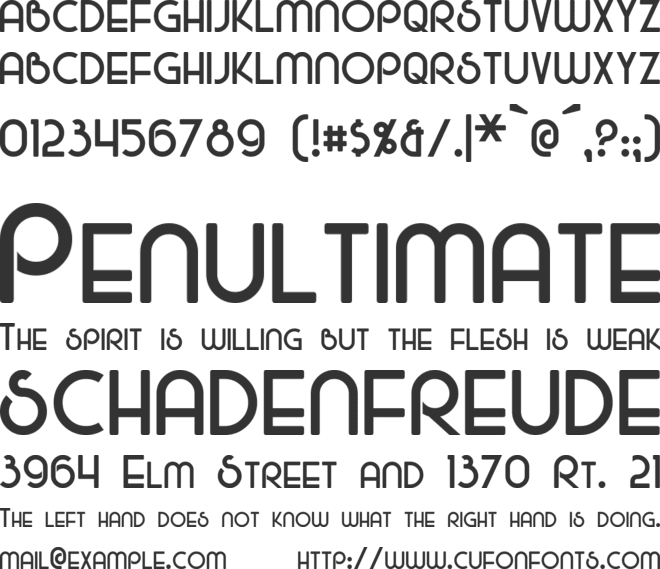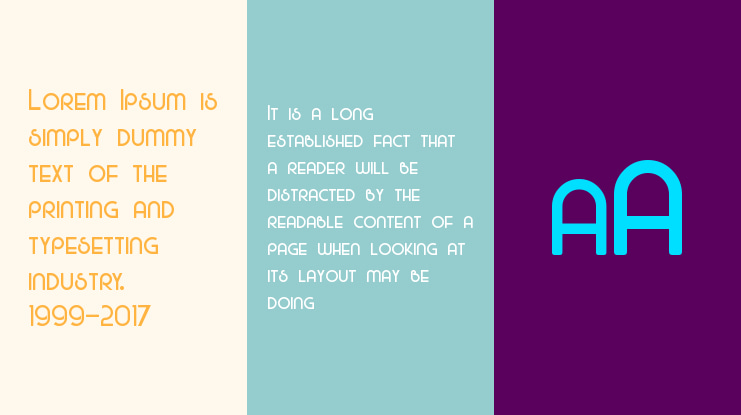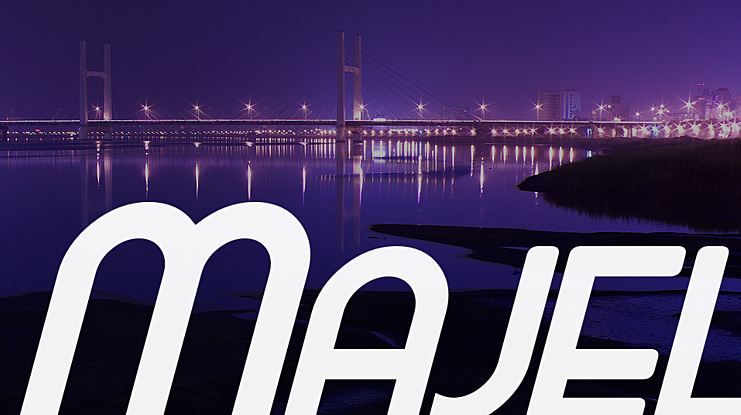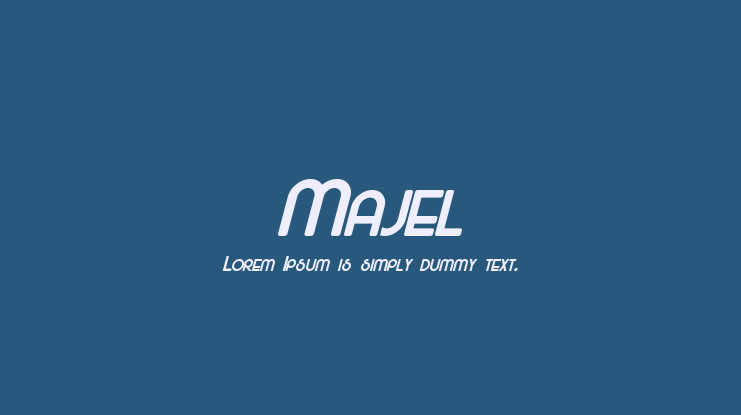
Majel Font Family
This later-period bit of art-deco is actually inspired by some of the title lettering of Franz Joseph's "Star Trek: Blueprints" and "Star Trek: Star Fleet Technical Manual". Includes full alphabet, numerals, extended punctuation, euro. Includes bold and italic versions.